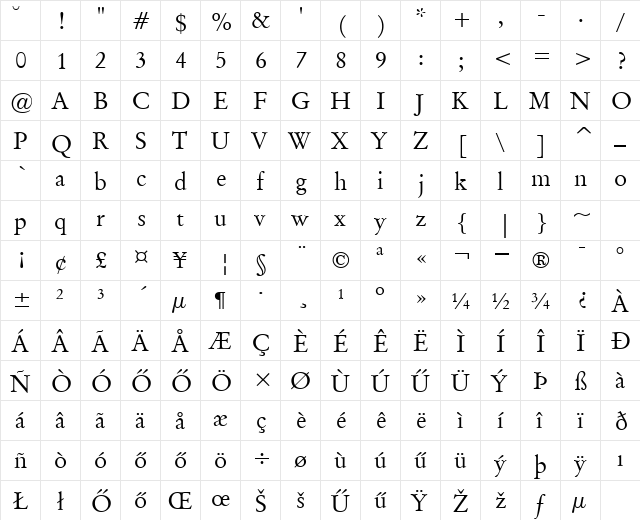
Complete Original Garamond Hu Normal glyph index. Displaying only characters natively supported by Original Garamond Hu Normal font.
Original Garamond Hu is a composed and adaptable typeface that performs quietly and consistently across a wide range of design contexts.